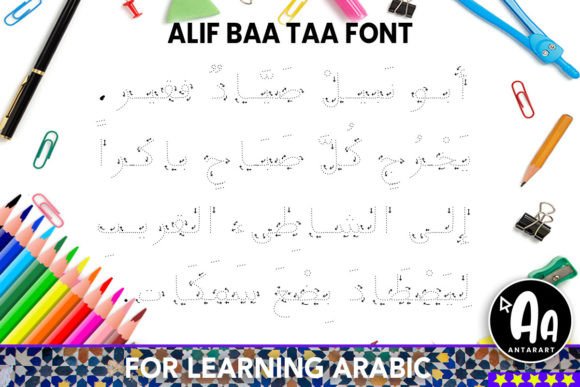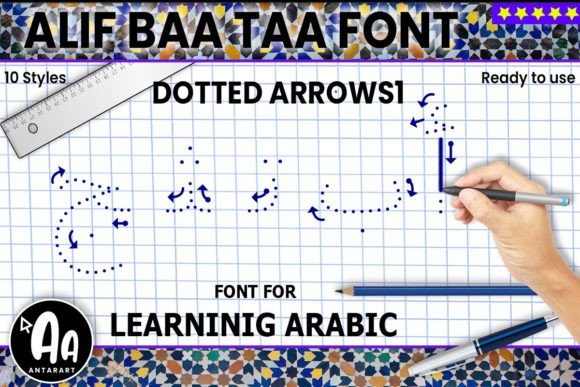
Discovering the Power of Arabic Script
As I sat at my desk, surrounded by sheets of paper and a handful of pens, I was suddenly struck by the intricate beauty of the Arabic alphabet. The fluid strokes, the delicate curves, and the precise dots that danced across the page all seemed to whisper a story of a language that was both ancient and timeless. It was in this moment that I realized the importance of having the right tools to learn and teach Arabic, and that’s where Alif Baa Taa Dotted Arrows One Font comes in.
This remarkable handwritten font is more than just a design element – it’s a learning resource, a teaching tool, and a creative catalyst. With Alif Baa Taa Dotted Arrows One Font, you can create thousands of Arabic worksheets using any software, making it an invaluable asset for designers, educators, and anyone interested in the Arabic language.
• Unique Characteristics: This font features a unique combination of Arabic and Latin script styles, with dotted arrows and other creative elements that add a touch of elegance and sophistication to any design.
Alif Baa Taa Dotted Arrows One Font Review
Overall, I’m impressed with Alif Baa Taa Dotted Arrows One Font. It’s a unique, well-designed font that works well for certain projects. ✨ The distinctive dotted arrows add a touch of elegance and sophistication, making it perfect for luxury brands, high-end products, or sophisticated packaging.
Here are some of the font’s strengths:
• ✨ Unique design that stands out from more common fonts
• ✨ Elegant, sophisticated feel that’s perfect for luxury brands
• ✨ Works well for headings and titles due to its bold, striking appearance
• ⚠️ May be difficult to read at small font sizes due to its complex design
• ⚠️ Limited font weights and styles may make it difficult to create a cohesive look
• ⚠️ May not be suitable for projects that require a more casual or playful tone
Overall, I’d recommend Alif Baa Taa Dotted Arrows One Font for projects that require a touch of luxury and sophistication. While it has its limitations, it’s a well-designed font that can add a unique touch to your design.
Tips for Getting the Most Out of Alif Baa Taa Dotted Arrows One Font
Use Alif Baa Taa Dotted Arrows One Font for titles, headings, and emphasis. This font is particularly effective in creating visually appealing and modern designs.
Alif Baa Taa Dotted Arrows One Font is suitable for a variety of projects, including:
• Graphic design
• Logos and branding
• Typography-based designs
Alternatives to “Alif Baa Taa Dotted Arrows One Font” for Designers